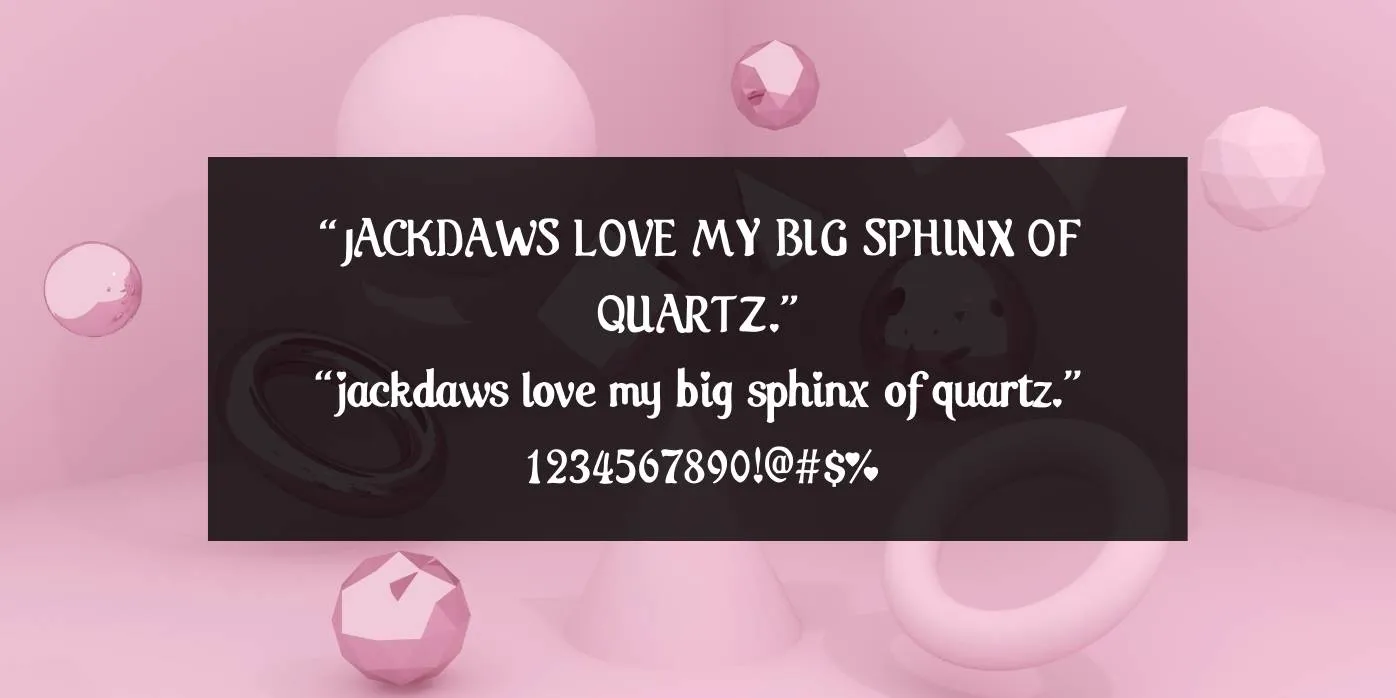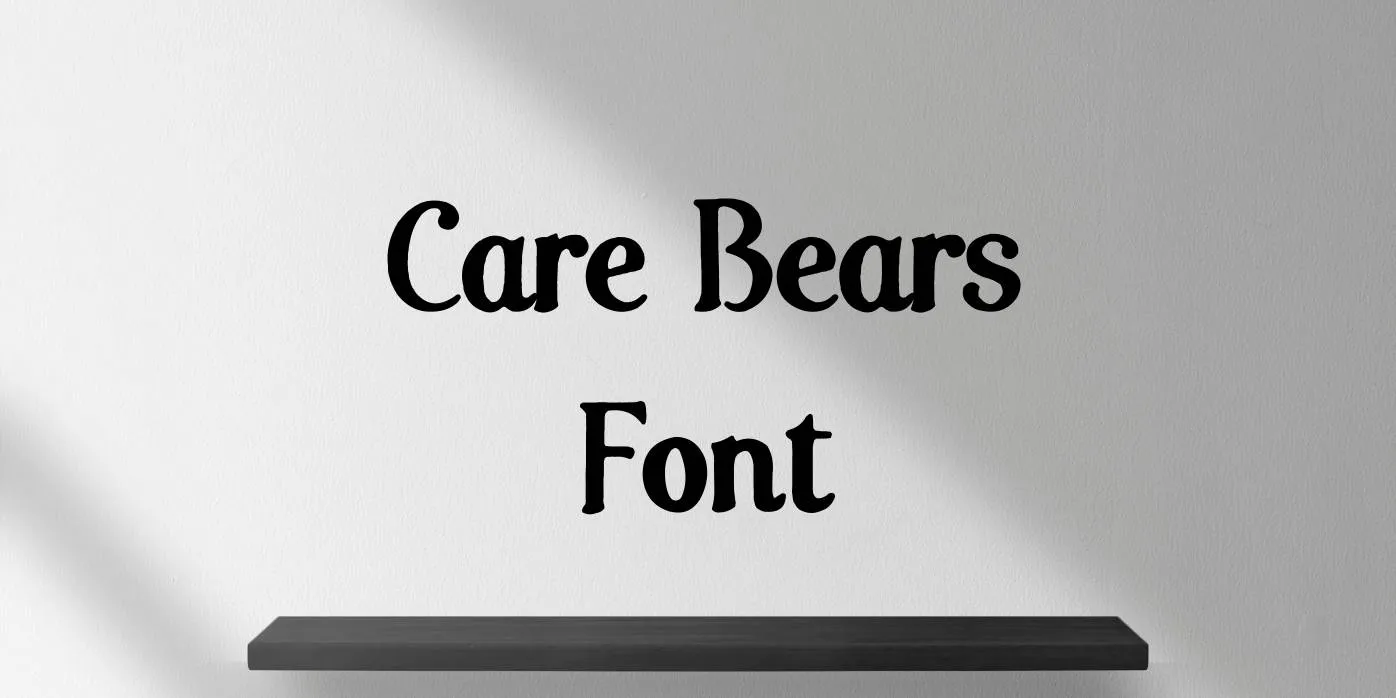
Care Bears Font
Introducing a standard typeface known as Care Bears Font. This typeface belongs to the fancy typeface and was designed by Darrell Flood. The typeface was first released on December 12, 2017. It is well famed for CSS.
For more classic features, you will have to use its alternative pokemon font which has the same features. Care Bears Typeface is a very versatile typeface that can be used for various purposes.  This tremendous typeface has two different styles: regular and italic. The regular style is the more commonly used one. It looks very similar to the italic style except that the letters are not slanted.
It is also a google font and is available on our website. This Awesome Font supports both Latin and Cyrillic character sets. This means that it can be used for languages such as Russian, Ukrainian, and Bulgarian. If you’re looking for such a type of typeface, then it is the best choice.